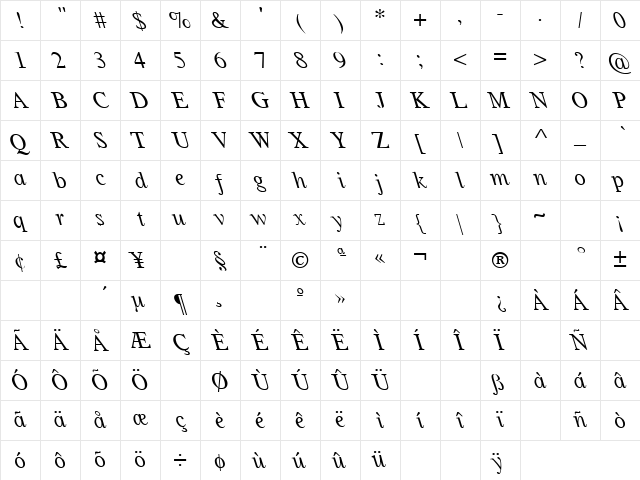
Somebody 1 Regular
Design Context for Somebody 1
Somebody 1 is a composed and adaptable typeface that performs quietly and consistently across a wide range of design contexts.